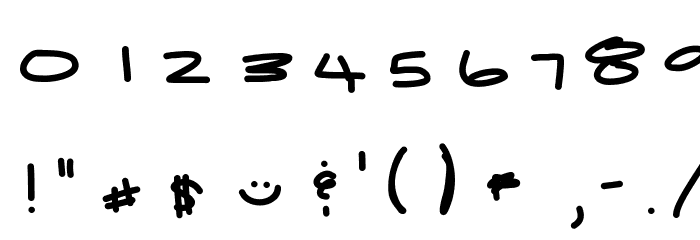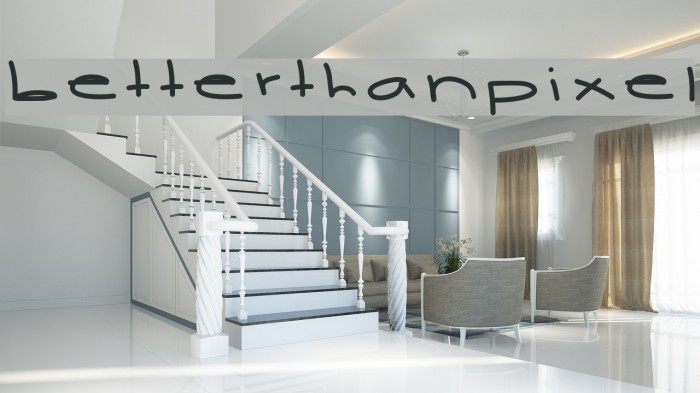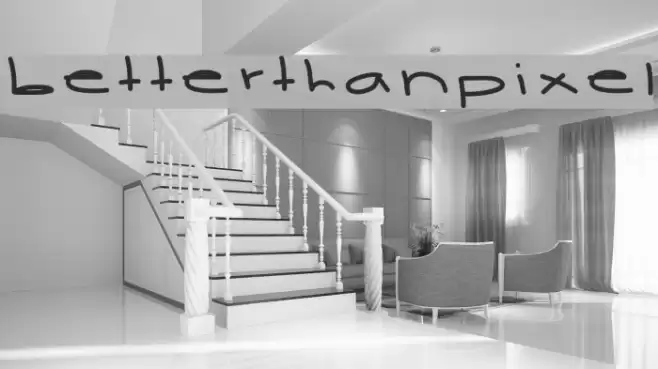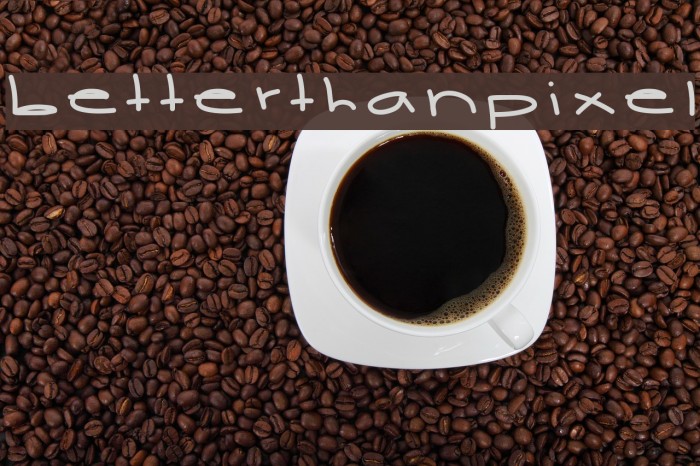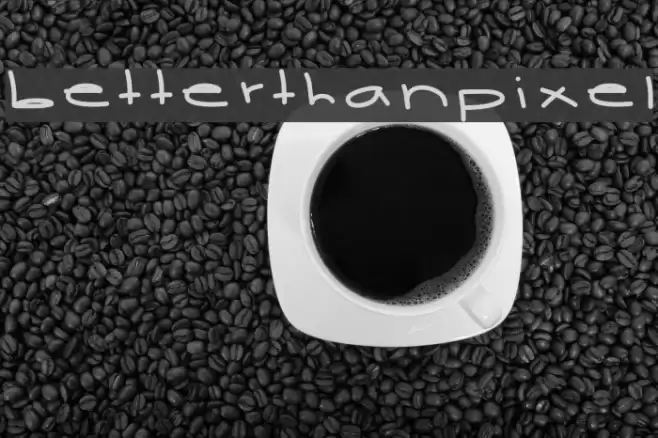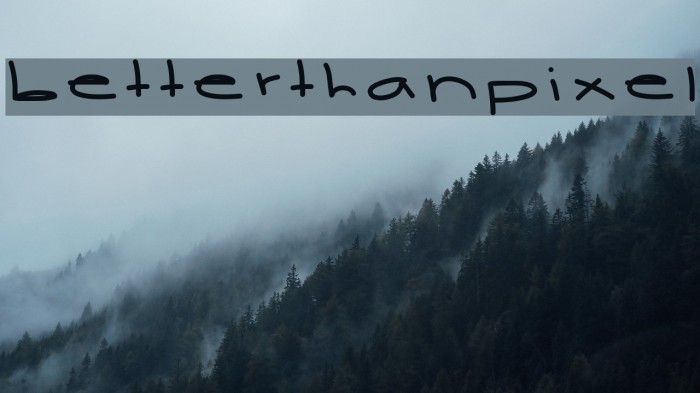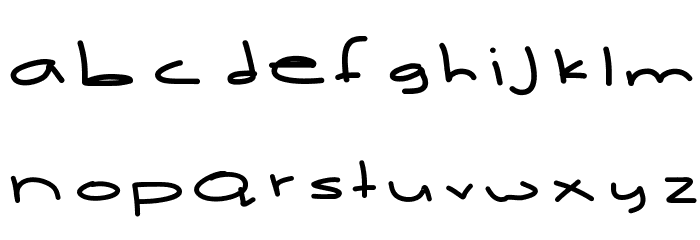
BetterThanPixel Font
BetterThanPixel Description
This font features a playful and casual handwritten style, characterized by its rounded and slightly irregular letterforms. The strokes are smooth and fluid, giving it a friendly and approachable appearance. The lowercase letters are consistent in height, while the uppercase letters maintain a similar width, creating a harmonious balance. The numerals are clear and easy to read, matching the overall style of the alphabet. Special characters are included, adding versatility for various uses. The font's informal nature makes it suitable for projects that require a personal touch.
A playful, casual handwritten font with rounded, smooth letterforms from Uncategorized fonts.
- Proposed Projects: Ideal for greeting cards, children's books, personal blogs, and informal branding.
- Overall Style: Casual
- Use Case: Logos, Headlines, Informal Text